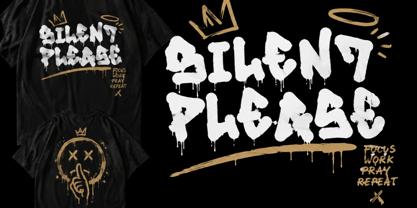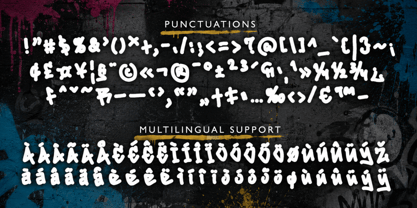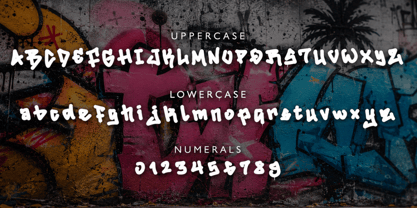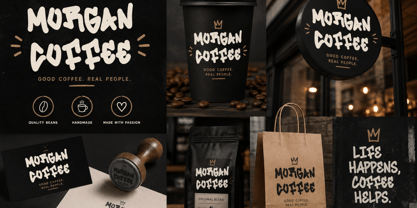
Island Graffiti
by Yoga Letter
The Island Graffiti Font Family was designed by Isroni Yoga Prasetya and published by Yoga Letter. Island Graffiti contains 1 styles. More about this family
"Island Graffiti" is a graffiti font with elegant, blunt letter tips. It features uppercase and lowercase letters, numerals, punctuations, and multilingual support. It's perfect for t-shirts, logos, banners, branding, stickers, tattoos, prints, and other uses. It's perfect for summer, spring, vacation, holiday, Halloween, Christmas, Easter, and more.
Designers: Isroni Yoga Prasetya
Foundry: Yoga Letter
Island Graffiti